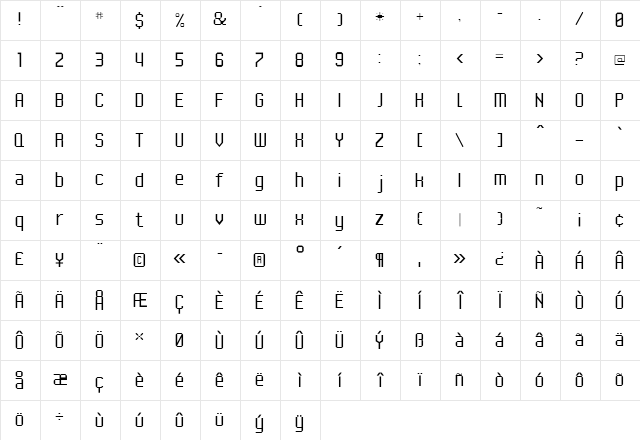
UNDA Regular Font Preview
UNDA Regular
Design Context for UNDA Typeface
UNDA is a composed and adaptable typeface that performs quietly and consistently across a wide range of design contexts.